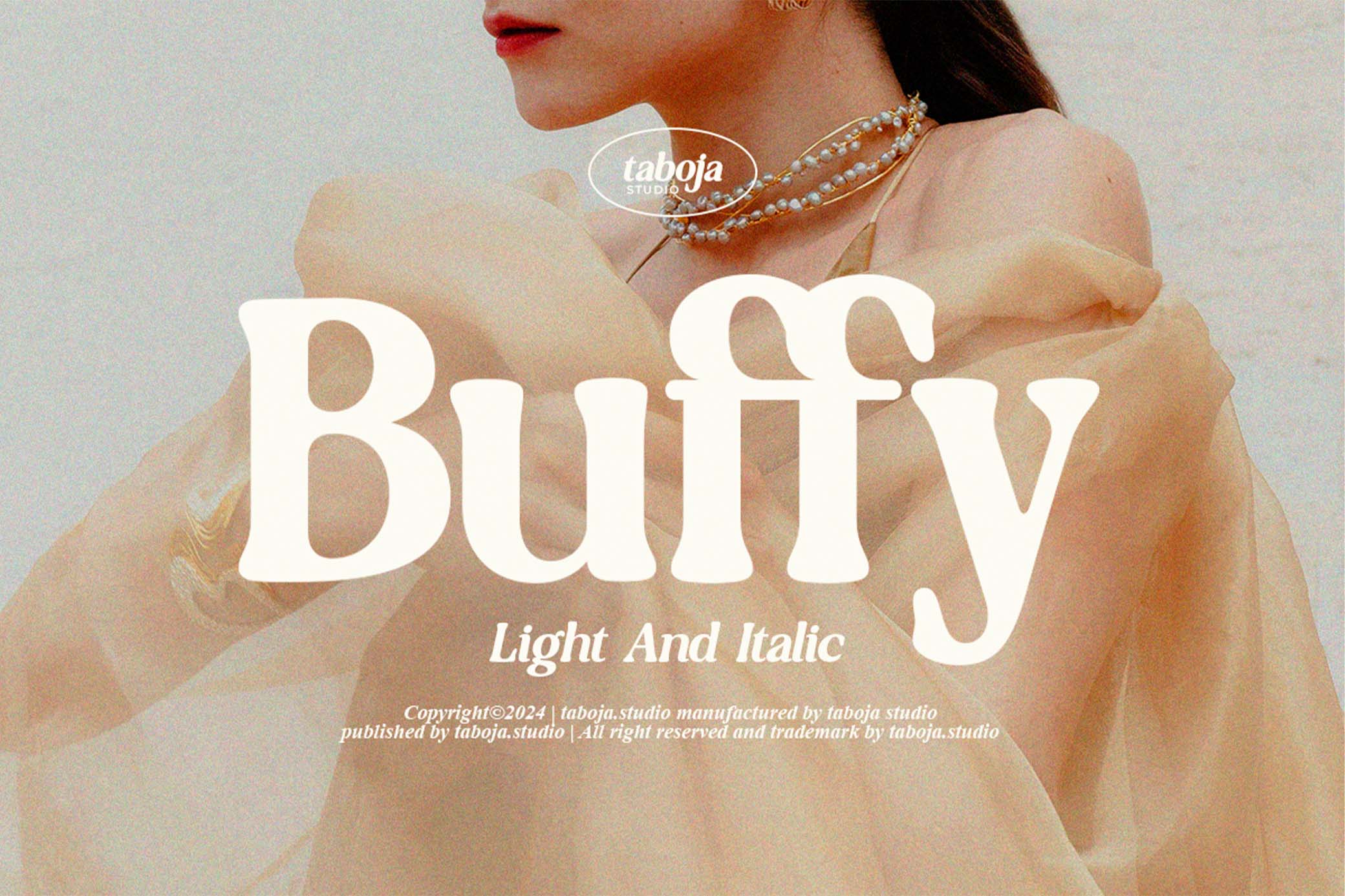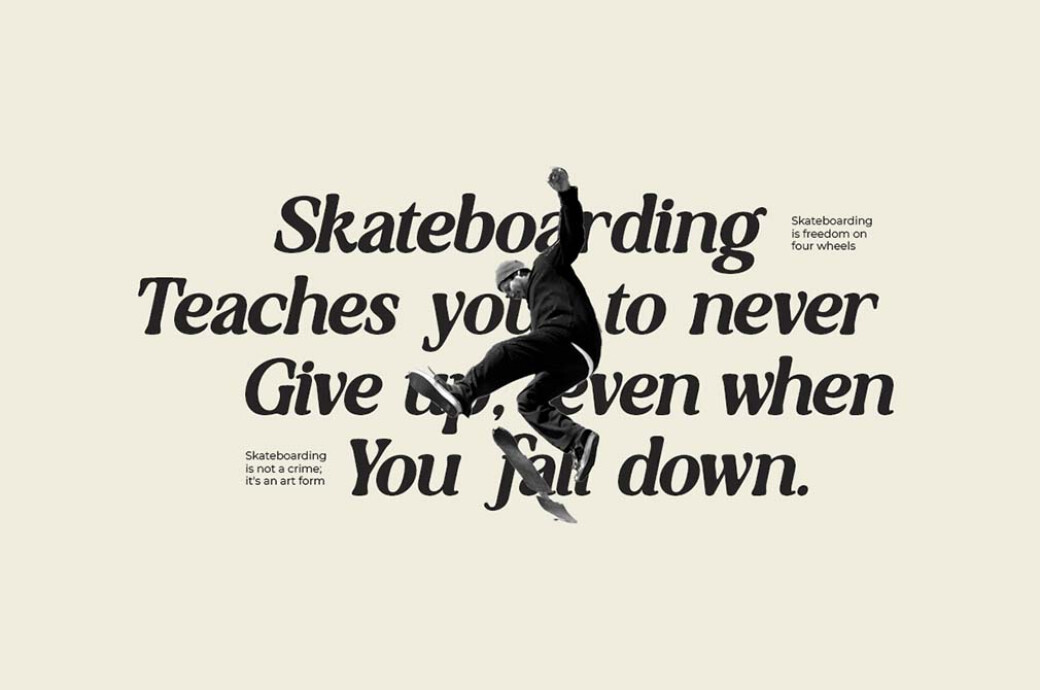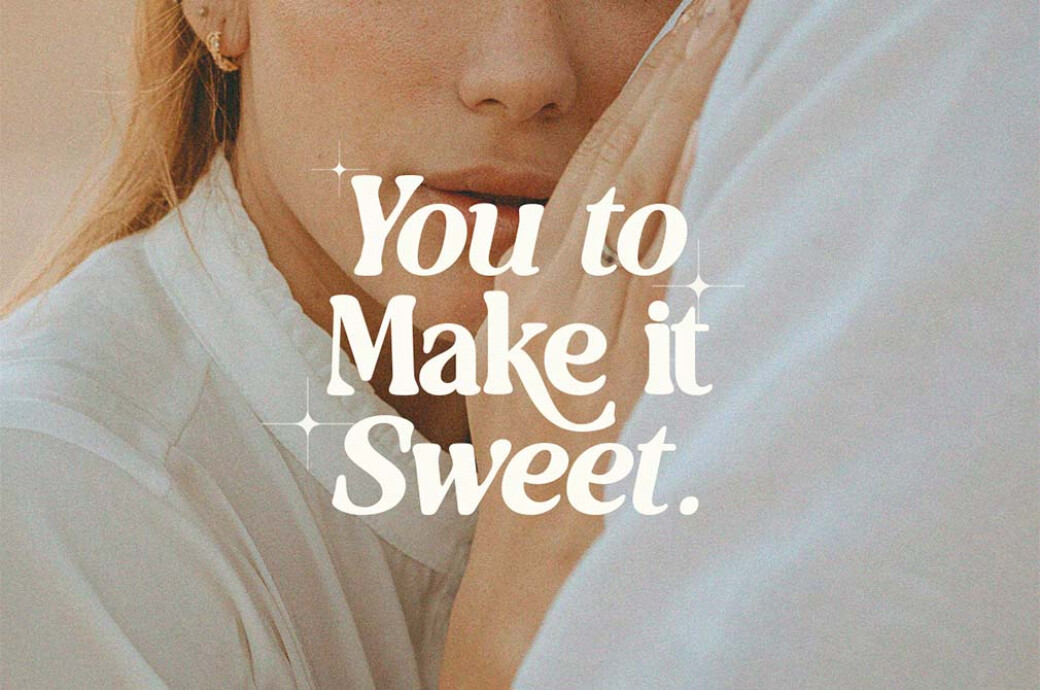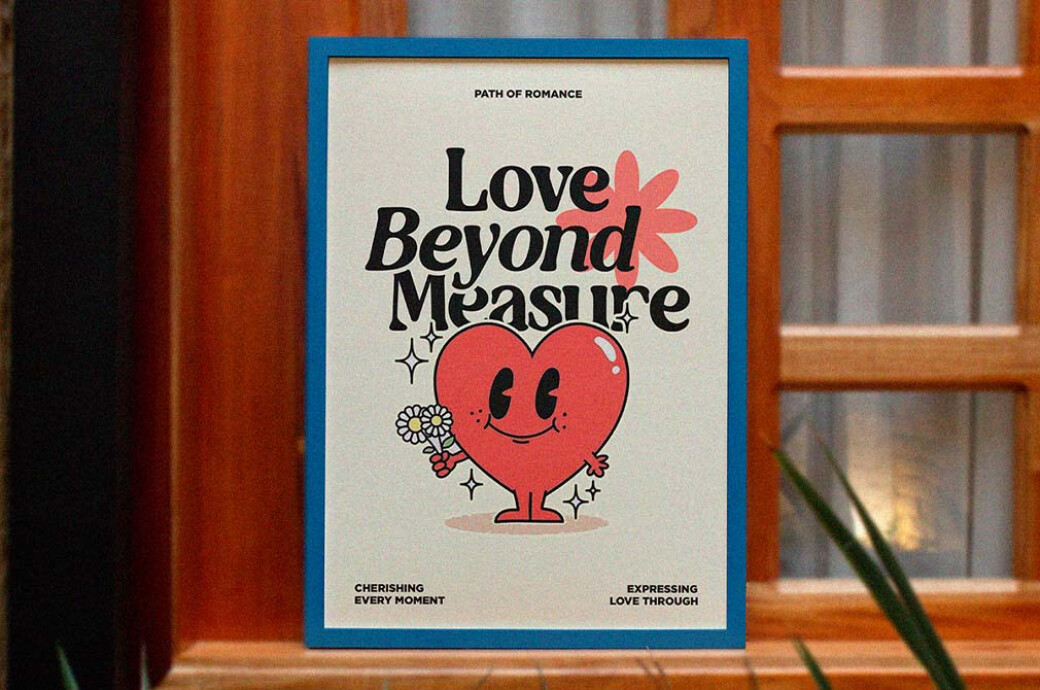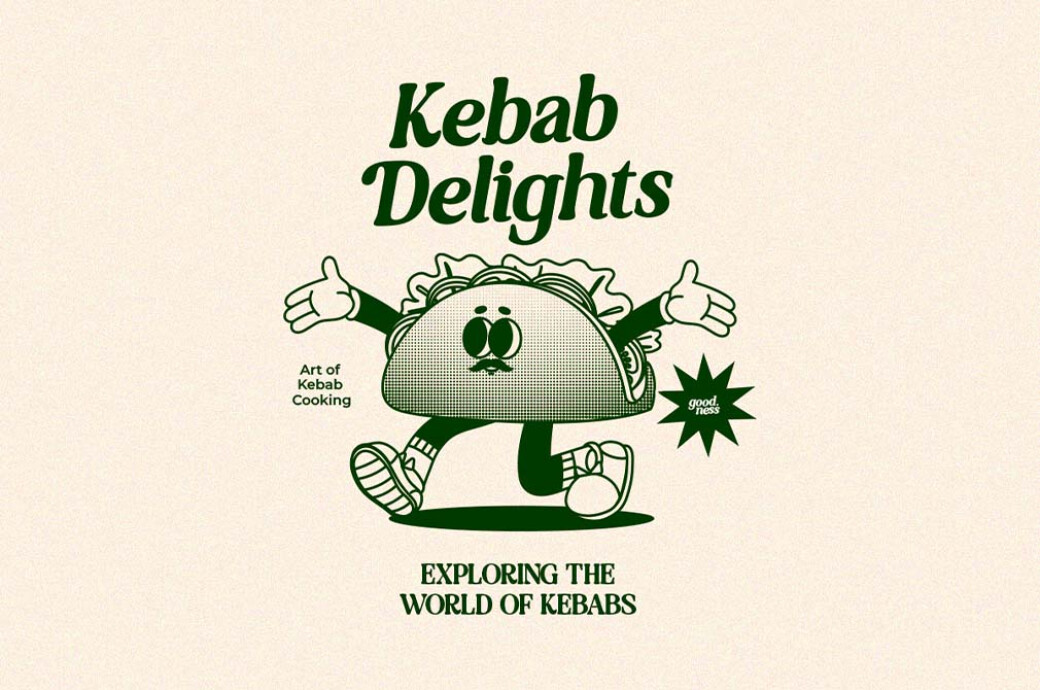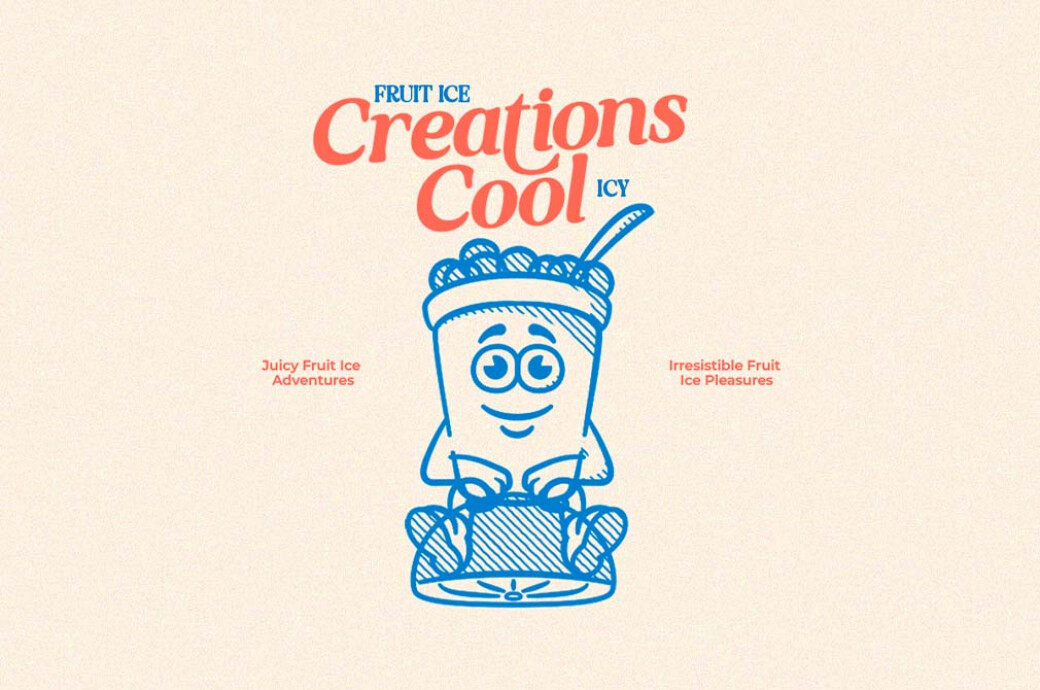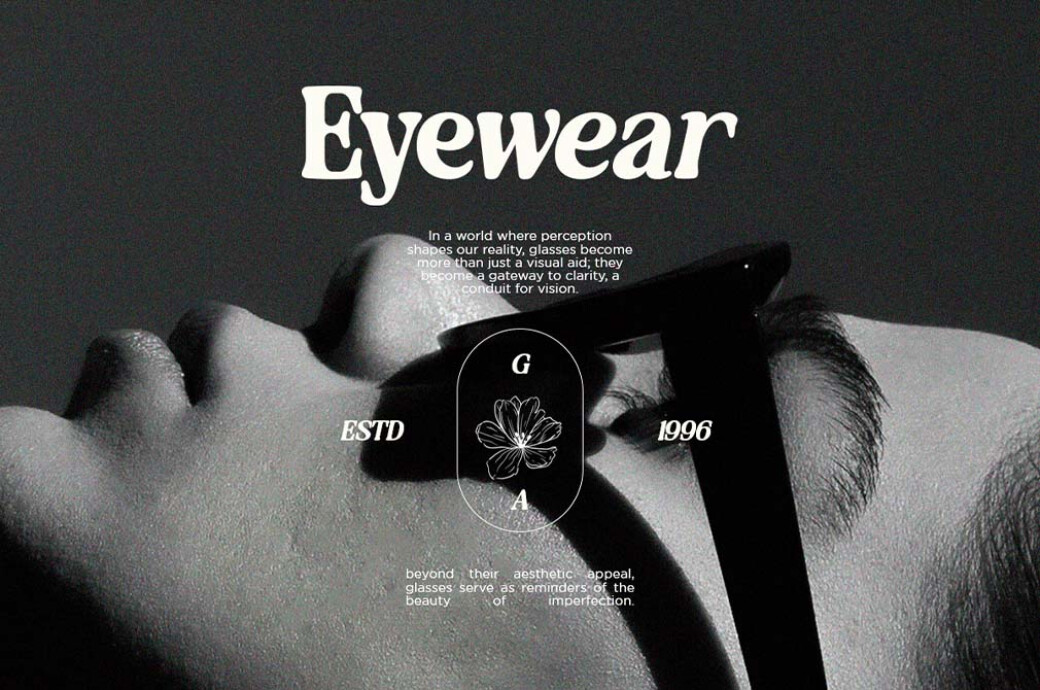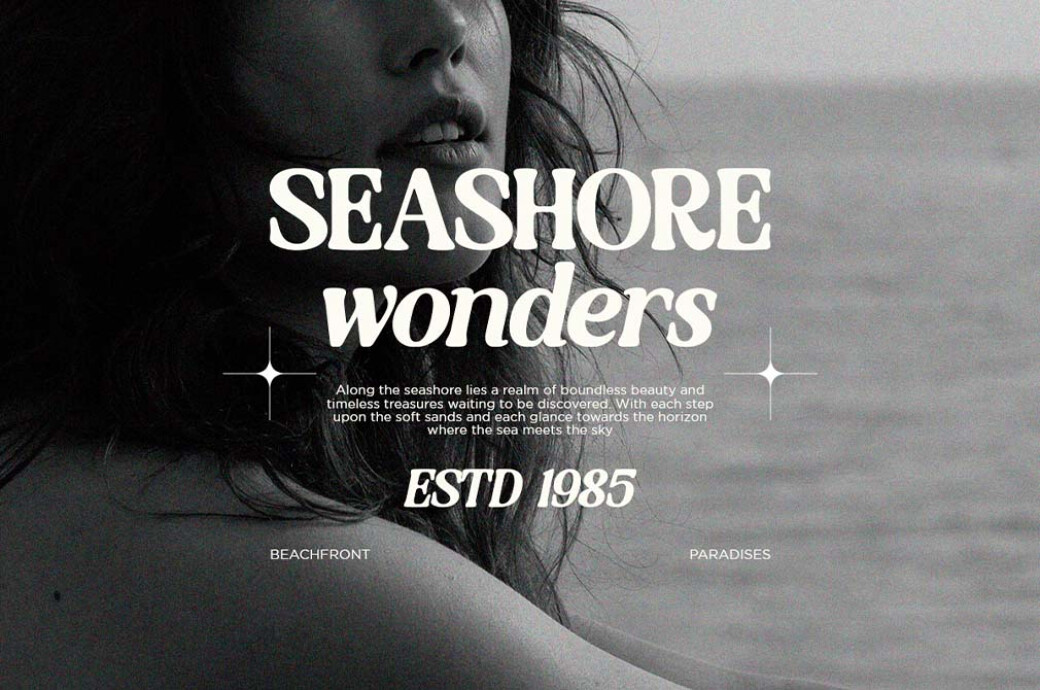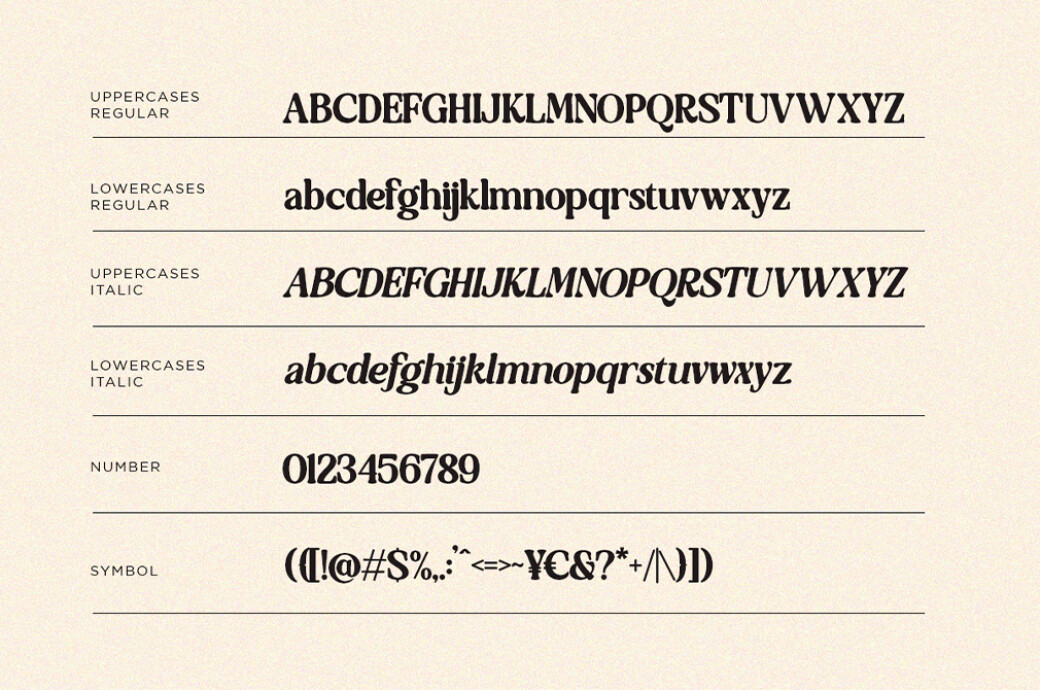
TBJ Buffy — Light & Italic Serif
The 90s legacy shines at its brightest in Buffy. This decade is known for the fanciest typography and most elegant serifs, and this one is a prime example of it.
Buffy combines time-tested serif elements with modern touches, creating a visually striking and bold appearance. An extended set of characters, which covers ligatures, alternates, accented characters, and more, ensures the creative freedom one could just dream of. The uses cover anything, from retro-look magazine covers and editorials to movie titles and tattoos.